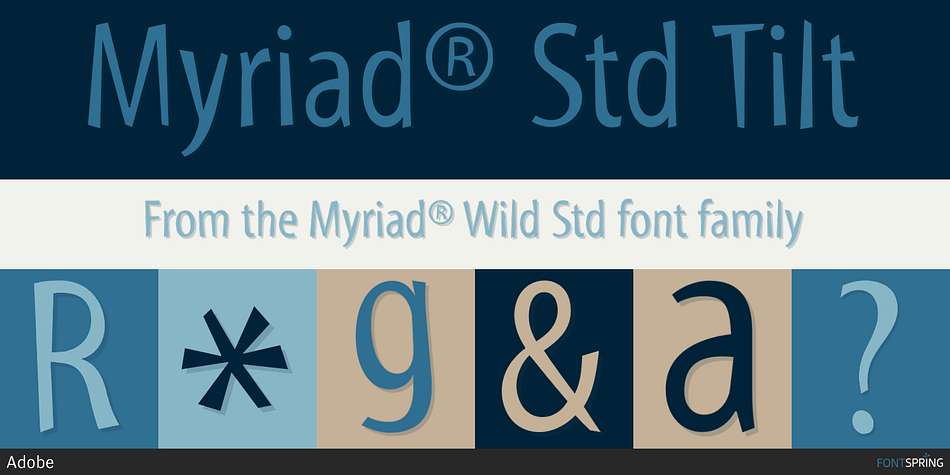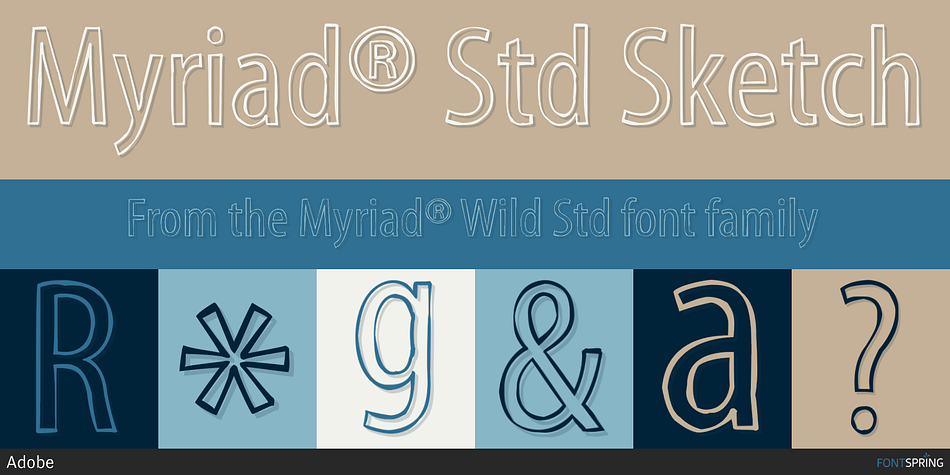
Myriad® Wild Std is a hand drawn and hand display font family. This typeface has two styles and was published by Adobe.
Myriad is an Adobe Originals typeface designed by Carol Twombly and Robert Slimbach in 1992. Myriad is a humanistic sans serif design. Myriad is useful for text, and fills display needs in all sizes and mediums.